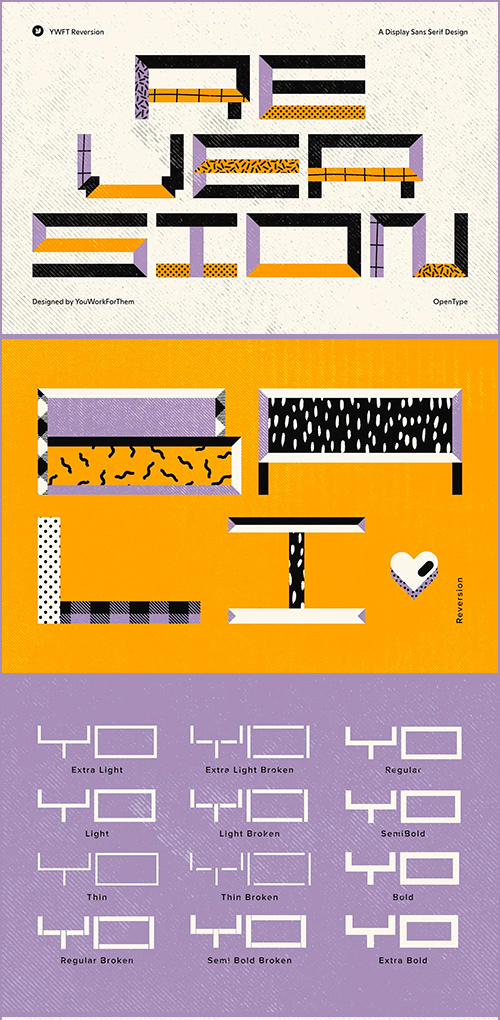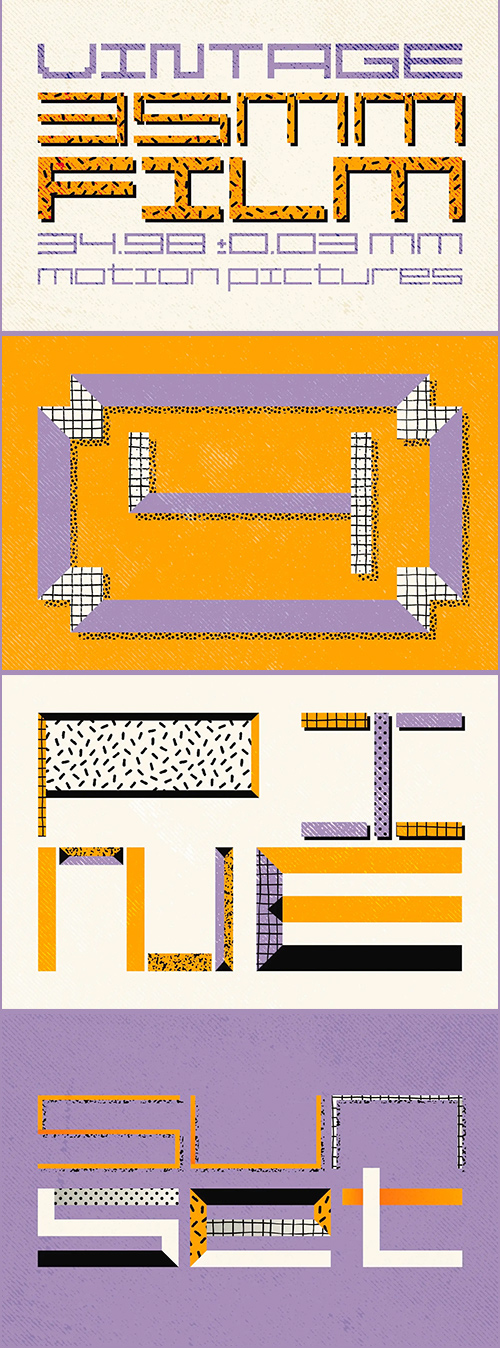
- YWFT Reversion is a distinctive and adaptable display typeface, ideal for creating bold headlines, captivating posters, or striking billboards. Its wide structure provides a solid foundation for custom lettering projects, allowing designers to innovate from a robust skeleton. The typeface stands out in its category, particularly due to its unique letter formations in the Broken styles, which offer a fresh take on bitmap and display typography.
- Originally converted to Opentype format in 2010, YWFT Reversion continues to be a valuable asset for designers looking for a versatile tool. Its innovative design elements make it suitable for a variety of applications, from projects requiring a modern edge to those needing a creative kick. Whether enhancing visual impact or contributing to a cohesive design narrative, YWFT Reversion offers the versatility needed by contemporary graphic and digital designers.